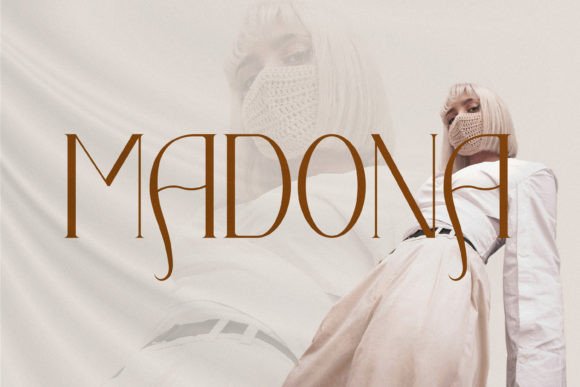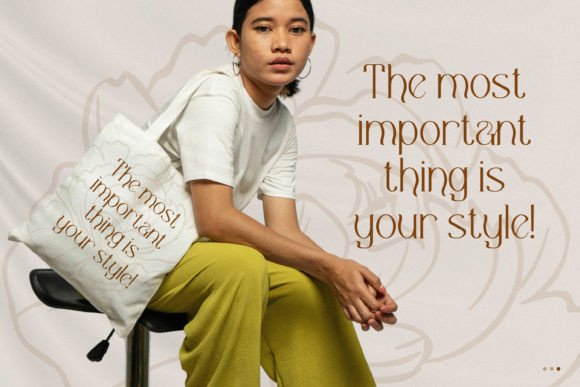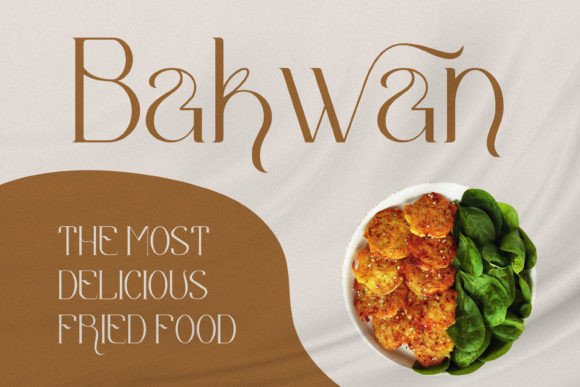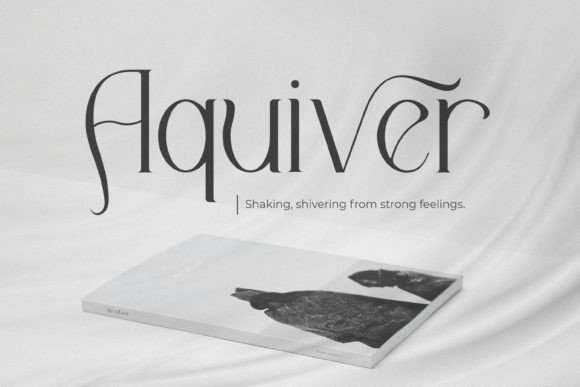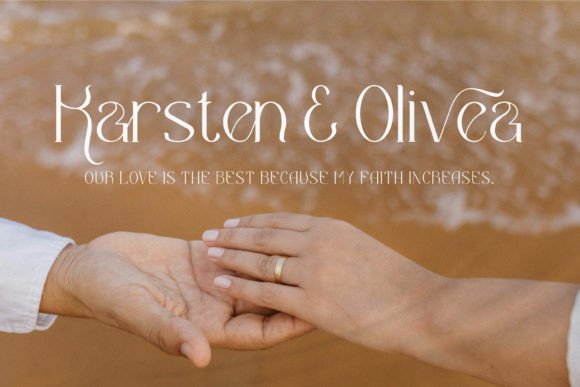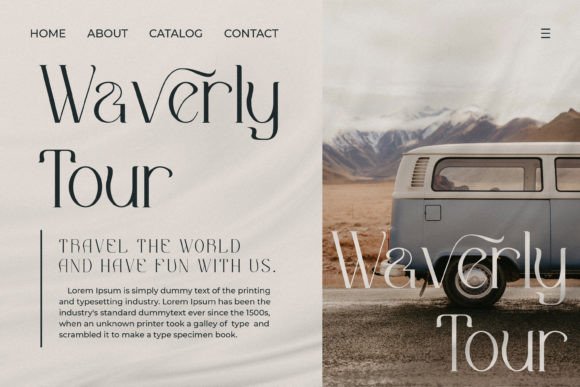
Introduction to Ranwon Font
Have you ever been stuck on a creative project, staring at a blank canvas, desperate for that perfect font to bring your vision to life? For designers, the search for the ideal typography can be a daunting task, especially when it comes to high-end projects that demand a premium look. This is where the Ranwon Font comes in – a modern serif font that’s set to revolutionize the way you approach your next creative project.
Developed by Jeritype Studio, the Ranwon Font is a game-changer for designers who crave a high-quality, versatile font that can be used across various mediums, from logos and branding projects to homewares designs and product packaging. With its sleek, sophisticated design and transparent background, this font is the ultimate design resource for anyone looking to elevate their creative work.
Key Features of Ranwon Font
- High-quality design: Ranwon Font is a well-crafted typeface suitable for various creative projects, offering a professional look and feel.
- Transparent background: This font features a transparent background, making it ideal for designs that require a clean and minimalist aesthetic.
- High-resolution design: Ranwon Font is designed at a high resolution (300 DPI), making it suitable for print and digital applications.
- Unique characteristics: This font features a unique blend of modern and vintage elements, setting it apart from other sans-serif fonts in the market.
Honest Review: Ranwon Font
As a designer, I’ve had the chance to work with a variety of fonts, but the Ranwon Font has caught my attention for its unique and creative flair.
I downloaded the font for free, which is always a bonus, and was impressed by its high quality and versatility. The transparent background is a nice touch, allowing me to easily blend it with other design elements.
Here are some things that work well for me:
- ✨ Unique and creative characters that add a touch of whimsy to my design projects
- ✨ High-quality font that’s perfect for both digital and print designs
- ✨ Transparent background makes it easy to use in various design contexts
While the Ranwon Font is a great addition to my design resource library, I do have some limitations to mention:
- ⚠️ Limited font sizes available (only a few sizes are included in the free download)
- ⚠️ Some characters may not be suitable for all types of creative projects
Overall, I’m impressed with the Ranwon Font and would recommend it to fellow designers looking for a unique and high-quality font for their creative projects. Just keep in mind its limitations, and you’ll be all set to create amazing designs.
Ranwon Font
Ranwon Font is a high-quality design resource ideal for creative projects that require a unique touch. This versatile font can be used in various design applications, from logos to digital art.
For the best results, use the Ranwon Font on a transparent background to create a clean and modern look. This font is ideal for logos, business cards, and other design elements that require a touch of elegance.
Common use cases include branding, digital art, and creative projects that require a unique and high-quality font.
Q: Can I use the Ranwon Font with a transparent background?
Yes, the Ranwon Font has a transparent background, making it perfect for design projects that require a clean and modern look. You can use it with any background color or image.
Q: Is the Ranwon Font a high-quality design resource?
Yes, the Ranwon Font is a high-quality design resource that’s perfect for creative projects. It’s carefully crafted to provide a unique and elegant look that’s sure to elevate your design work.